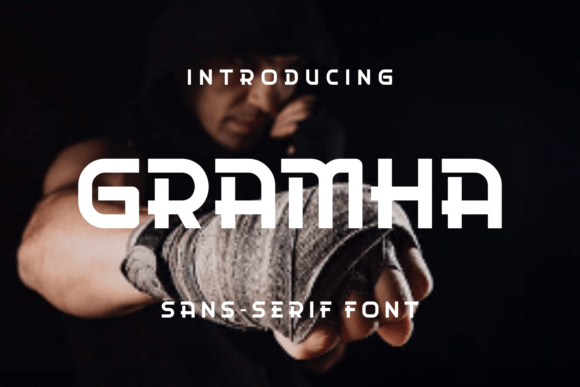
Get ready to embark on a typographical adventure with Gramha, a display font that oozes coolness and uniqueness, leaving a lasting impression on your designs. Every letter is meticulously crafted, combining sharp angles and sweeping curves, resulting in a visually stunning display that commands attention.
Gramha's versatility knows no bounds, adapting effortlessly to a wide range of projects, from science logos to posters, branding, and social media posts. It's the perfect font for expressing your scientific ideas, conveying complex concepts with clarity and style. Let Gramha be your trusty companion, guiding you through the realm of scientific communication with its distinct character.
With Gramha by your side, you'll discover a font that resonates with your scientific spirit. Its bold lines and dynamic curves mirror the intricate patterns found in nature, capturing the essence of scientific exploration. Unleash your creativity and let Gramha unveil the beauty hidden within your scientific concepts.
More than just a font, Gramha is an extension of your scientific identity. It's a font that embodies the essence of discovery, innovation, and the relentless pursuit of knowledge. It's a font that speaks volumes, transforming abstract theories into tangible expressions of brilliance.
Join the ranks of those who have embraced Gramha, the font that sets science ablaze. Let your designs radiate with intelligence, sophistication, and a touch of intrigue. Engage your audience with a font that sparks curiosity and leaves them yearning for more. Gramha is more than just a font; it's a scientific statement, an ode to the wonders of the universe.